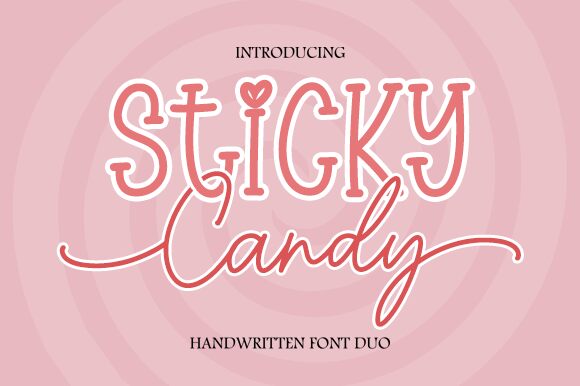
Sticky Candy
Unwrap the playful charm of Sticky Candy, a delightfully whimsical creation by Graphix Line Studio. With its semi-light weight and semi-condensed width, this display font captures the essence of carefree doodles turned into typographic artistry. Designed to mimic the quirks of cartoon lettering, Sticky Candy is a duo of handwritten fonts that interlace seamlessly, elevating your creative projects with a sweet twist.
Whether you're crafting birthday invitations or spicing up your social media graphics, Sticky Candy offers just the right balance of fun and functionality. Its distinctive style breathes life into logos, packaging designs, and storybooks alike. Let this font be the secret ingredient that makes your visual confections irresistibly engaging!